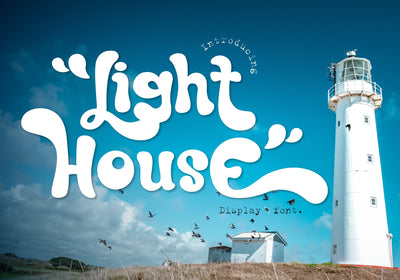
Lighthouse
Lighthouse is a handwritten font. It embodies fun and happiness. Add it to any retro projects and notice how this font brightens them up! This font is PUA encoded which means you can access all of the amazing glyphs with ease!